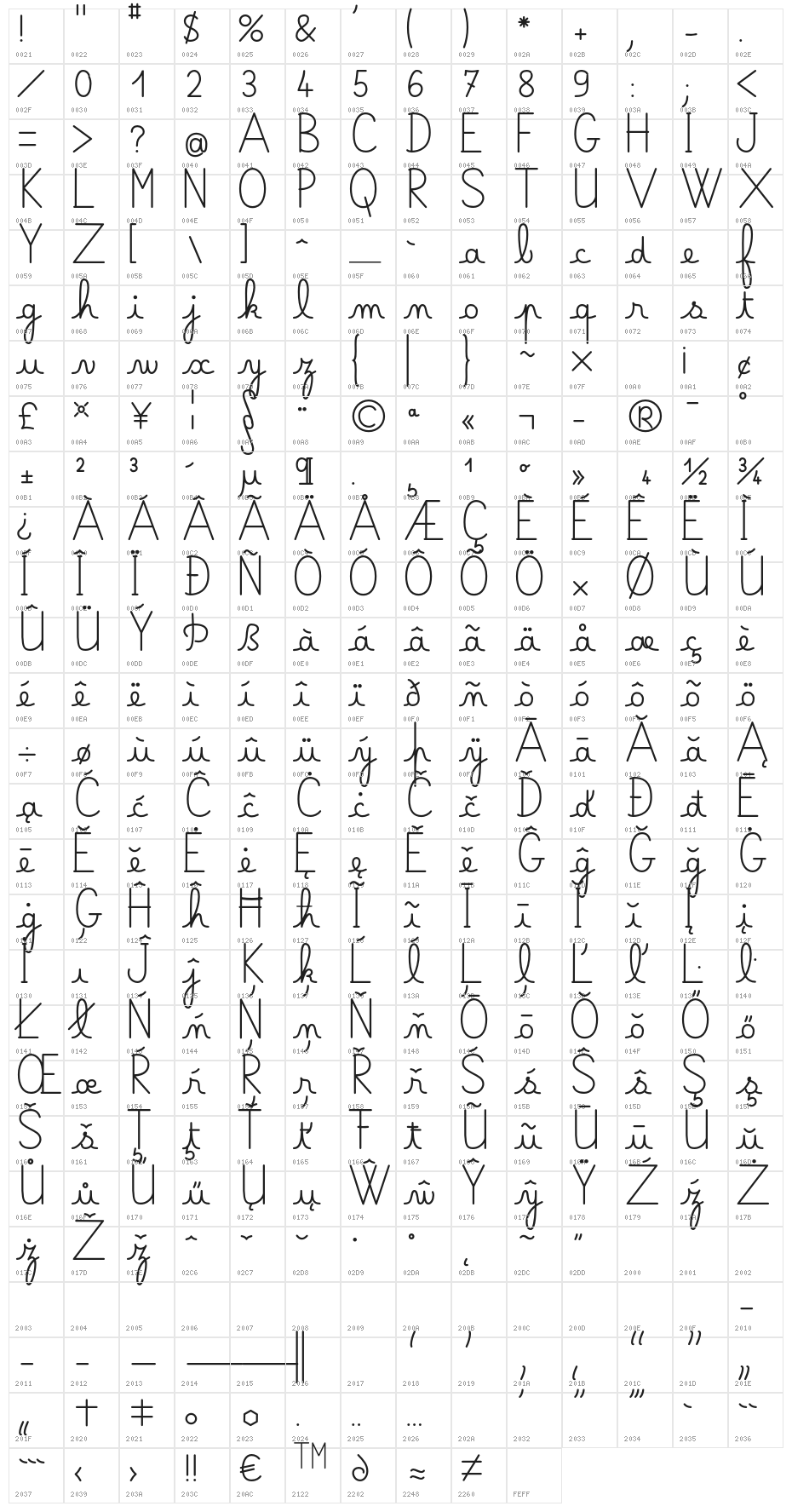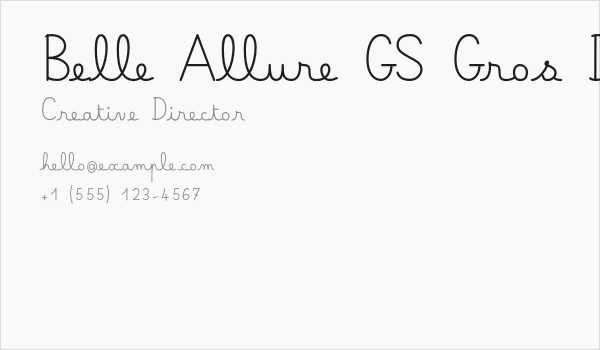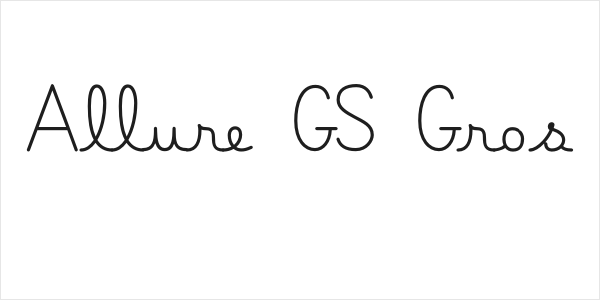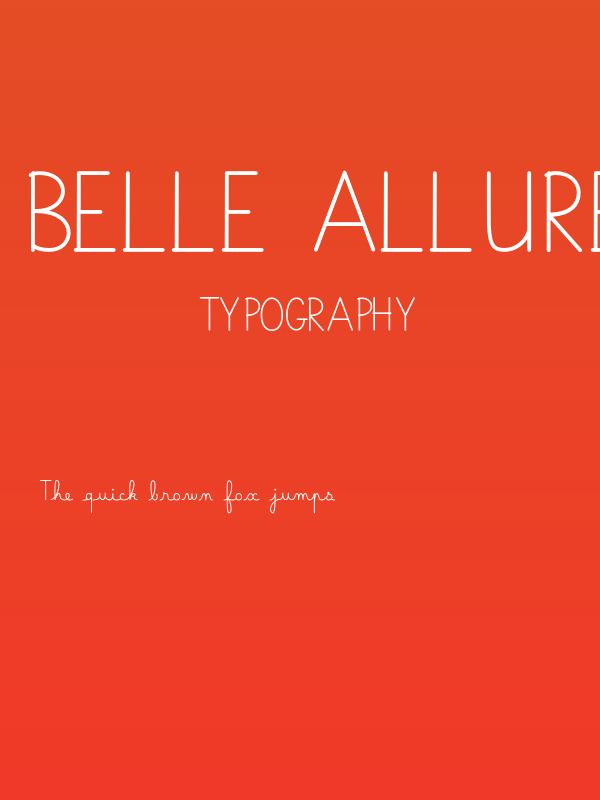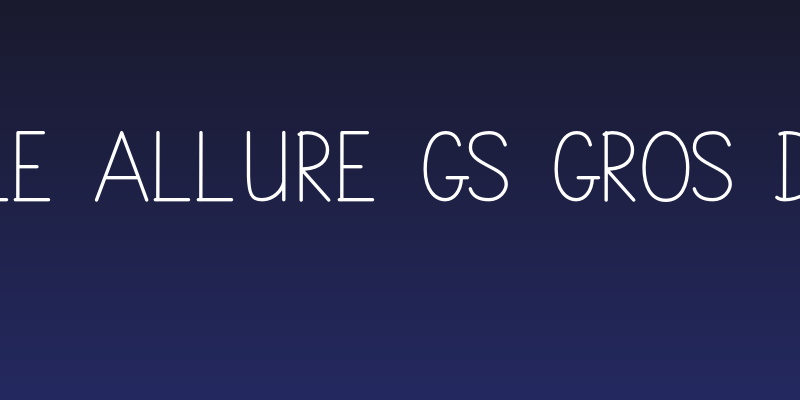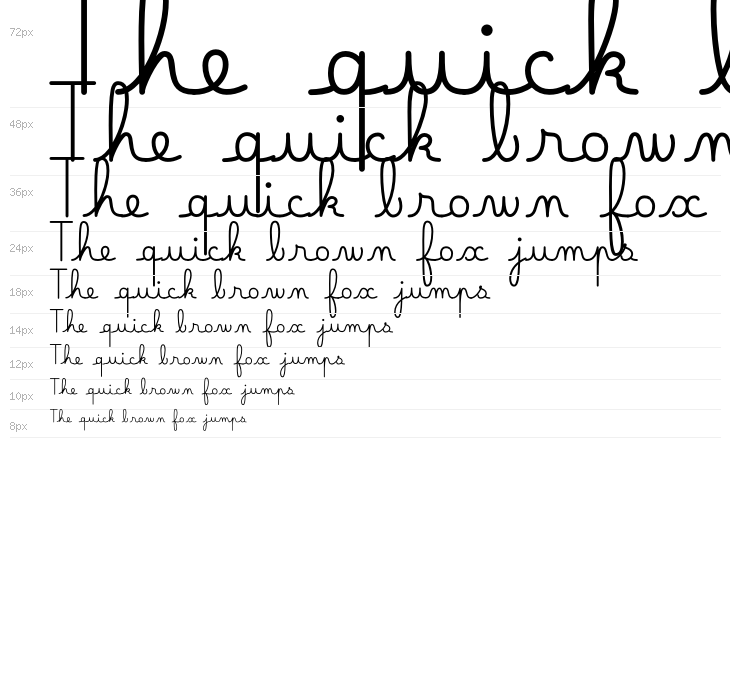
Belle Allure GS Gros Demo Font
This font features a playful and elegant script style with a handwritten feel. The uppercase letters are tall and slender, maintaining a consistent height with slight variations in width, giving them a modern and clean appearance. The lowercase letters are more fluid and connected, adding a touch of whimsy and charm. The numbers are clear and easy to read, matching the overall style with a smooth and rounded form. Special characters are thoughtfully designed to complement the alphabet, maintaining the same playful and elegant aesthetic. This font is versatile, suitable for various creative projects that require a personal and approachable touch.